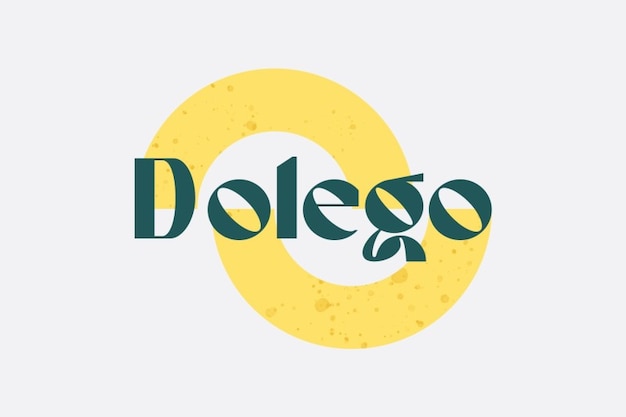
Dolego
Dolego Font
Authentype Studio
It is the epitome of cool simplicity. Its bold, no-nonsense design is perfect for making a statement without unnecessary frills. This font exudes a sense of confidence and straightforwardness, making it ideal for anything from modern logos to impactful headlines. "Dolego" adds that extra punch to your design, ensuring your message comes across loud and clear. It's a no-fuss choice for those who appreciate simplicity with a bold edge.